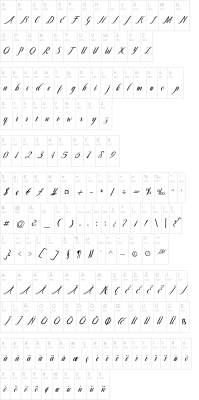
Bufalino Font
Bufalino Font is perfect for Italian restaurant branding, culinary logos, food packaging, wine labels, artisanal products, gourmet designs, rustic signage, authentic dining experiences, heritage brands, and Mediterranean-themed communications. This distinctive typeface excels in both digital and print applications requiring traditional character.
Bufalino Font is exciting because it captures the authentic spirit of Italian craftsmanship with elegant letterforms that evoke traditional artisanal quality and Mediterranean warmth while maintaining excellent readability. Its heritage character creates memorable brand experiences that resonate with audiences seeking genuine cultural authenticity and artisanal excellence.
The Bufalino Font family includes regular, bold, light, italic, condensed, extended, and ornamental variants, providing designers with comprehensive typographic options for various design scenarios and heritage communication requirements.
Bufalino Font embodies the timeless elegance of Italian design tradition, delivering exceptional typography that reflects the sophisticated craftsmanship and cultural heritage of Mediterranean artisanal excellence. This distinguished typeface draws inspiration from classic Italian lettering and traditional signage to create letterforms that communicate authenticity, quality, and cultural pride. The font's heritage character makes it particularly valuable for authentic Italian restaurants, artisanal food producers, wine estates, and cultural organizations that require typography capable of conveying genuine Italian tradition and craftsmanship excellence.
The artisanal construction of Bufalino Font demonstrates faithful attention to traditional Italian lettering principles, with refined proportions and elegant details that create sophisticated compositions reminiscent of classical Mediterranean design. This careful craftsmanship ensures excellent performance across diverse applications, from intimate restaurant menus to premium product packaging where authentic heritage enhances brand credibility. The font's sophisticated qualities make it especially effective for brands in gourmet foods, luxury hospitality, cultural tourism, and artisanal crafts that celebrate Italian tradition and Mediterranean lifestyle.
Creative professionals working with Bufalino Font Free Download will appreciate the typeface's versatility across heritage and contemporary design challenges. Its traditional styling bridges classical and modern aesthetics, making it suitable for established family businesses and innovative companies requiring authentic, memorable typography that communicates cultural heritage. The font's warm presence makes it particularly effective for culinary schools, Italian cultural centers, artisan workshops, and tourism businesses that must communicate authenticity through elegant, trustworthy visual design.
Whether developing culinary brand identities, creating heritage communications, or designing cultural marketing materials, Bufalino Font provides the authentic elegance needed for communications that celebrate Italian tradition while maintaining professional standards and achieving genuine connection with audiences who appreciate cultural authenticity and artisanal quality.